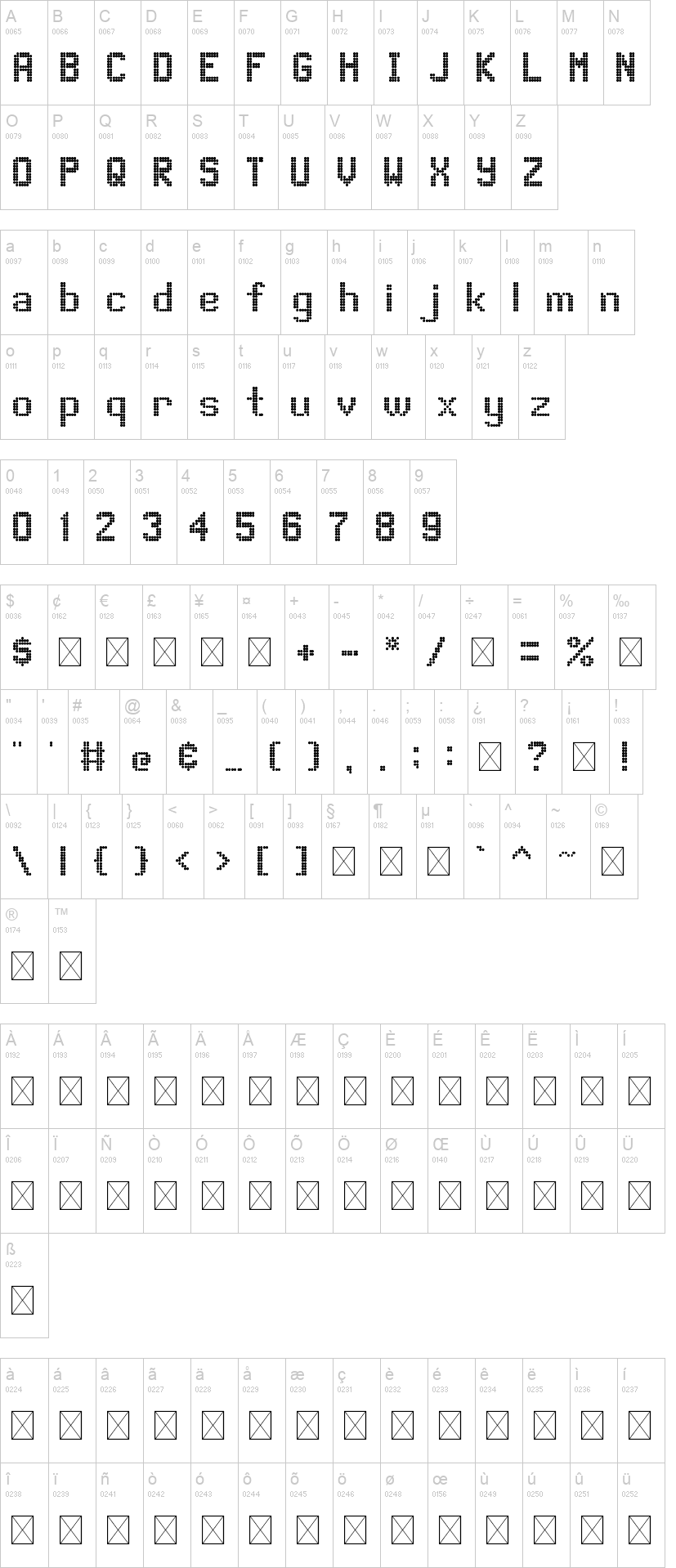
The font is inspired by KONE KSS 470's floor indicator, I know FontStruct has a few fonts similar to this, and I decided to remake the font my own way. It's free-to-use since it isn't originally mine (belongs to the elevator company KONE.)